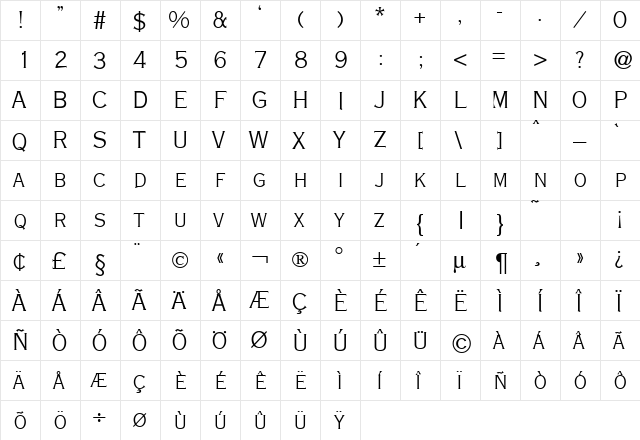
CopperSmallDB Normal Font Preview
CopperSmallDB Normal
Design Context for CopperSmallDB Typeface
CopperSmallDB offers clean, dependable letterforms without strong stylistic allegiance, making it a practical choice for designers who need flexibility.